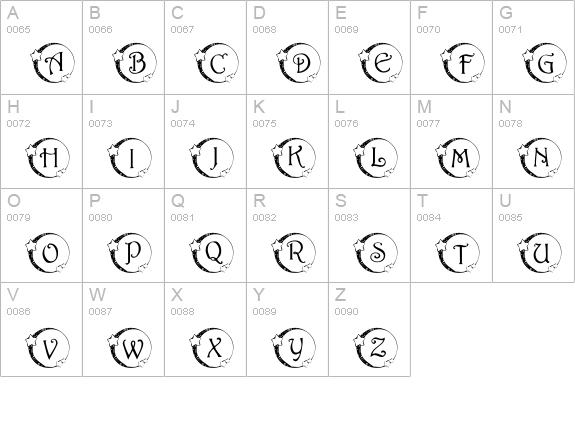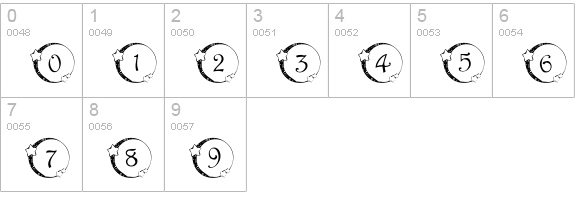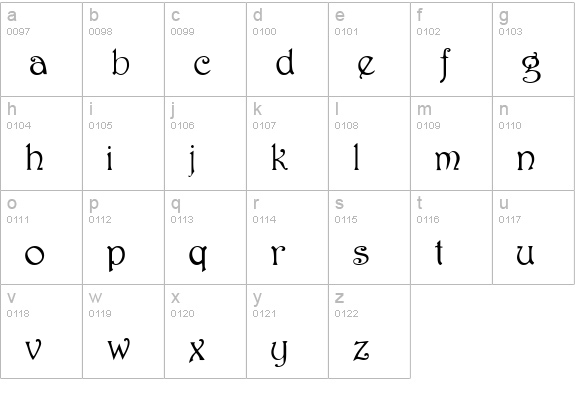
The 101! Star Lit Nght font is a whimsical and enchanting typeface that is sure to add a touch of magic to your designs. With its delicate curves and twinkling stars, this font exudes a sense of wonder and fantasy. Perfect for creating invitations, greeting cards, and other creative projects, the 101! Star Lit Nght font will transport your audience to a dreamy and ethereal world. Best of all, this stunning font is available for free download at FontsMarket.com. Don't miss out on the opportunity to add this beautiful and unique font to your collection today!